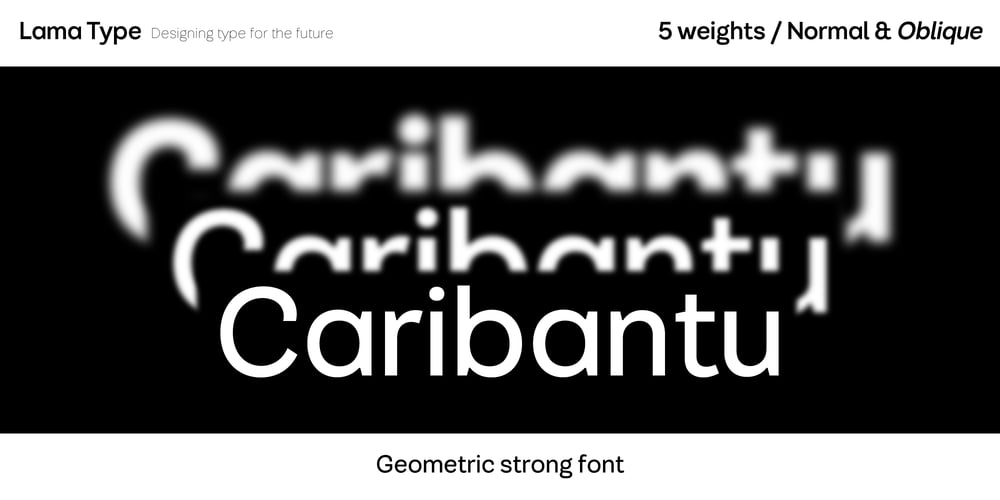
Caribantu Grotesque Font Family was designed by Renan Bassan and published by Lamatype. Caribantu Grotesque contains 10 styles and family package options. It’s my first typographic family, made experimentally while learning more and more about typography every day. Its irregular shapes are evident, and in a way, they brought singular originality to its design. Is an ugly duckling that deserves to be shown to start a journey.With closed curved glyphs like a, c, s, and proper width, this type can be used for text and display without the need to have another font. Uppercase and oblique letters can make an impact, and some alternate terminations from d, h, m, n, and u, can make an elegant appearance to your project.